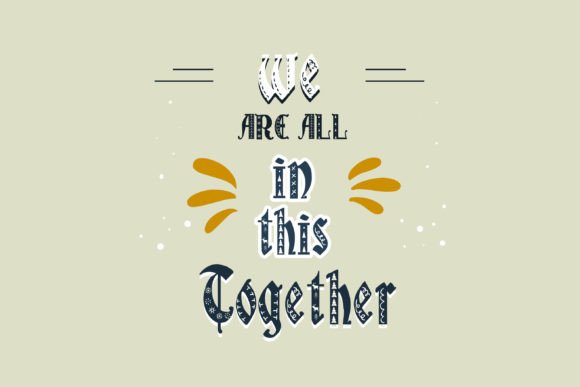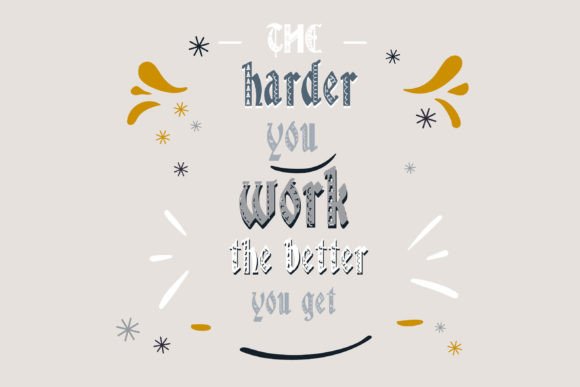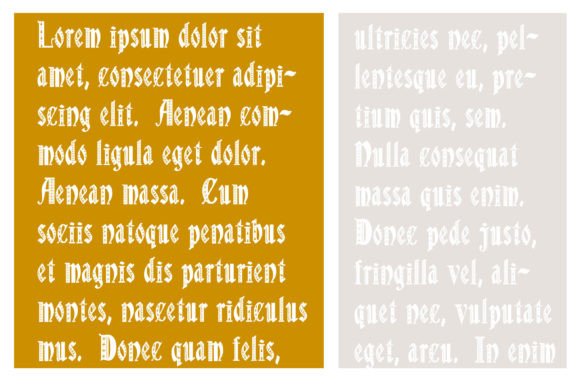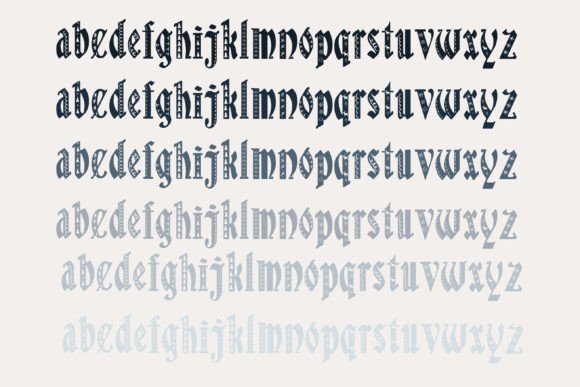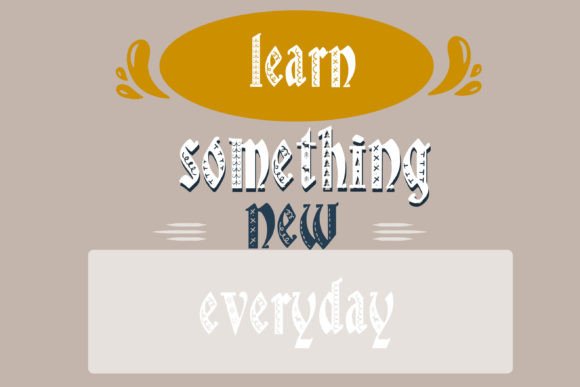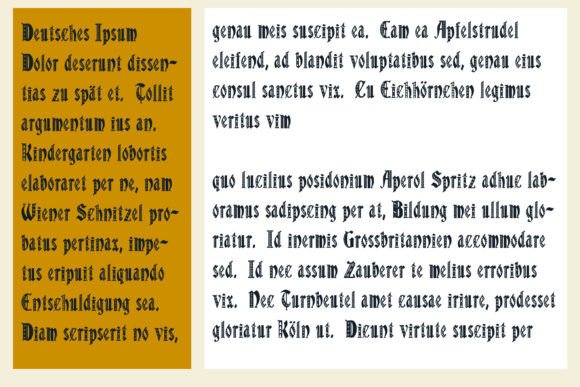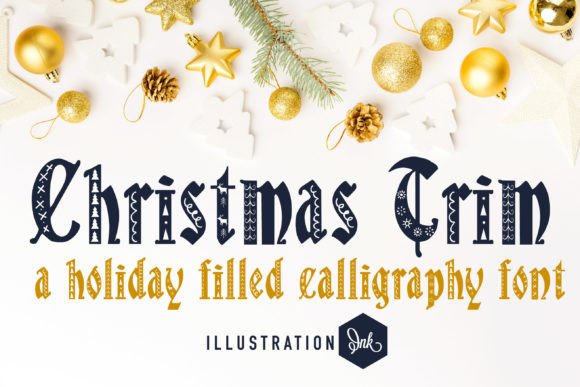
Introducing Christmas Trim Font: The Perfect Addition to Your Holiday Designs
Are you looking for a font that will add a touch of festive cheer to your holiday designs? Look no further than Christmas Trim Font! This sweet and festive decorative font is sure to brighten up each of your designs and leave a lasting impression on your audience. In this article, we’ll take a closer look at Christmas Trim Font and explore how you can use it to elevate your holiday designs.
What is Christmas Trim Font?
Christmas Trim Font is a decorative font designed specifically for the holiday season. Its cute and stylish design makes it perfect for a variety of projects, from holiday cards and invitations to social media graphics and website headers. With its festive flair, Christmas Trim Font is sure to add a touch of holiday magic to any design.
Key Features of Christmas Trim Font
So, what makes Christmas Trim Font so special? Here are just a few of its key features:
- Festive Design: Christmas Trim Font features a festive design that’s perfect for the holiday season. Its intricate details and ornate style make it a standout font that’s sure to grab attention.
- Cute and Stylish: This font is not only festive but also cute and stylish. Its playful design makes it perfect for projects that require a touch of whimsy and fun.
- Versatile: This font is versatile and can be used for a variety of projects, from holiday cards and invitations to social media graphics and website headers.
How to Use Christmas Trim Font in Your Designs
Now that we’ve covered the key features of Christmas Trim Font, let’s take a look at how you can use it in your designs. Here are a few ideas to get you started:
- Holiday Cards and Invitations: Add a touch of festive cheer to your holiday cards and invitations with Christmas Trim Font. Use it to create headings, titles, and other design elements that will make your cards and invitations stand out.
- Social Media Graphics: Create festive social media graphics with Christmas Trim Font. Use it to create headings, titles, and other design elements that will make your graphics stand out.
- Website Headers: Add a touch of holiday magic to your website headers with Christmas Trim Font. Use it to create festive headings and titles that will make your website look and feel more welcoming.
- Crafting Projects: If you’re a crafter, you can use Christmas Trim Font to add a touch of festive cheer to your projects. Use it to create headings, titles, and other design elements for your scrapbooking, card making, and other crafting projects.
Tips for Getting the Most Out of Christmas Trim Font
Here are a few tips for getting the most out of Christmas Trim Font:
- Experiment with Different Sizes and Colors: Don’t be afraid to experiment with different sizes and colors of Christmas Trim Font. Try using it in different sizes and colors to create visual interest and add depth to your designs.
- Combine with Other Fonts: Combine Christmas Trim Font with other fonts to create a unique and interesting design. Try pairing it with a simple sans-serif font to create a striking contrast.
- Use it Sparingly: While Christmas Trim Font is festive and fun, it’s best to use it sparingly. Use it to create headings, titles, and other design elements, but avoid overusing it, as this can make your designs look cluttered and overwhelming.
Christmas Trim Font is a sweet and festive decorative font that’s perfect for the holiday season. Its cute and stylish design makes it a great addition to any design project, from holiday cards and invitations to social media graphics and website headers. With its easy-to-use design and versatile style, Christmas Trim Font is sure to become a favorite font in your design arsenal. So why wait? Download Christmas Trim Font today and start adding a touch of festive cheer to your designs!